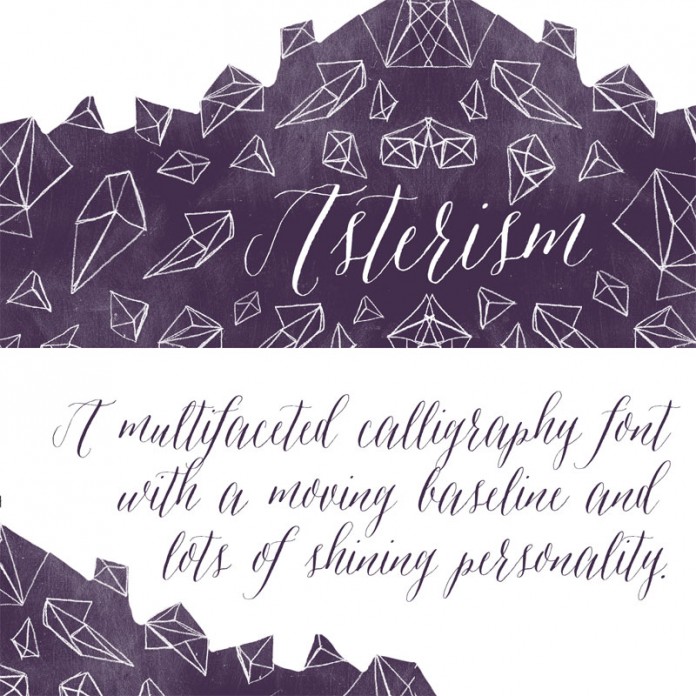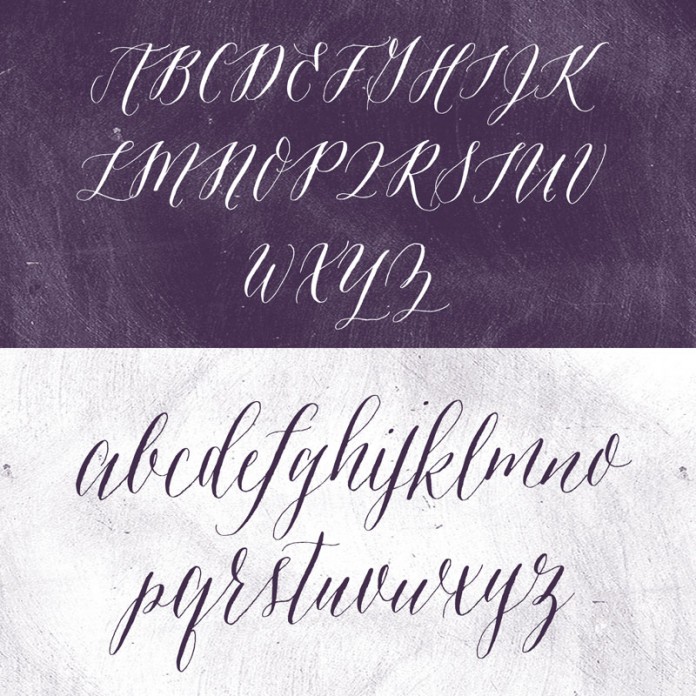
The Asterism typeface, a handwritten font with an illustrative touch from foundry Great Lakes Lettering.
The font designers Molly Jacques Erickson and Dathan Boardman of foundry Great Lakes Lettering have designed the Asterism typeface in 2013. This handwritten font provides a naturally moving baseline as well as a calligraphic touch. You can use this typeface for a variety of typographic projects such as invitations, restaurant menus, or in combination with hand drawn illustrations. You can get it as webfont and common desktop font.